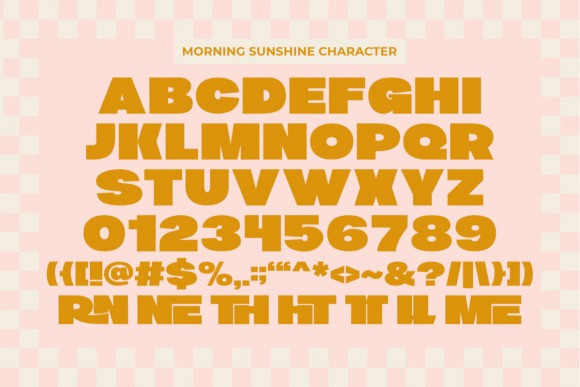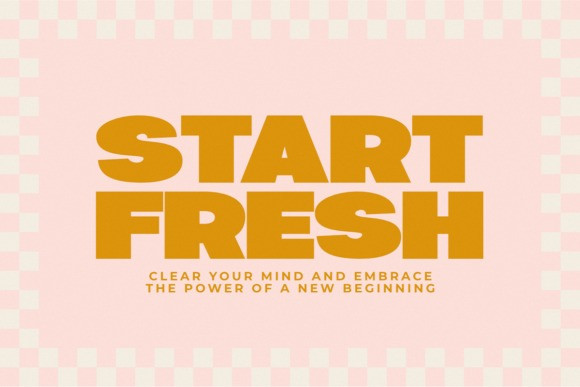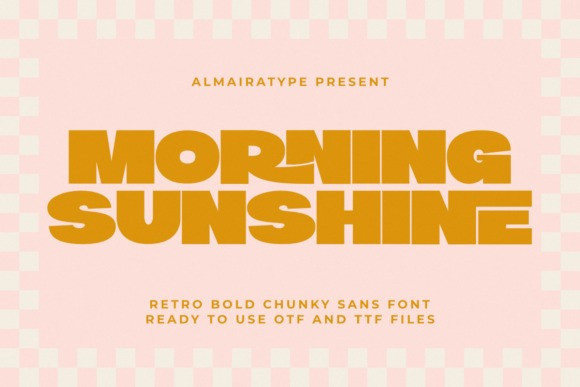
Morning Sunshine Font
Morning Sunshine Font is a bold chunky retro sans font meticulously designed to bring a powerful vintage warmth and high-impact aesthetic to your modern creative projects. Featuring a robust, thick structural anatomy and friendly decorative contours, this typeface beautifully bridges the gap between classic 70s nostalgia and contemporary commercial design trends. It stands out as an exceptional choice for professional graphic designers, independent clothing brands, custom apparel makers, passionate craft lovers, and Print on Demand (POD) entrepreneurs looking to create high-converting merchandise items. Whether you are building an eye-catching brand identity, designing trendy summer t-shirt lines, customizing unique product packaging layouts, or producing striking social media posters, Morning Sunshine ensures maximum readability and a distinct professional edge. Its ultra-clean vector outlines guarantee full technical compatibility with popular craft cutting software and digital vinyl plotters like Cricut and Silhouette, offering a flawless, hassle-free weeding experience for personalized stickers, mugs, and DIY craft projects. Elevate your commercial branding toolkits and artistic design portfolios with the cheerful, powerful, and versatile character of the Morning Sunshine typeface.